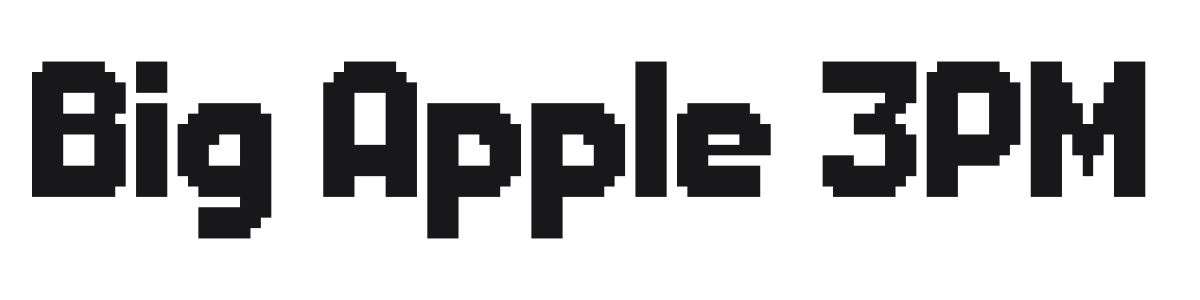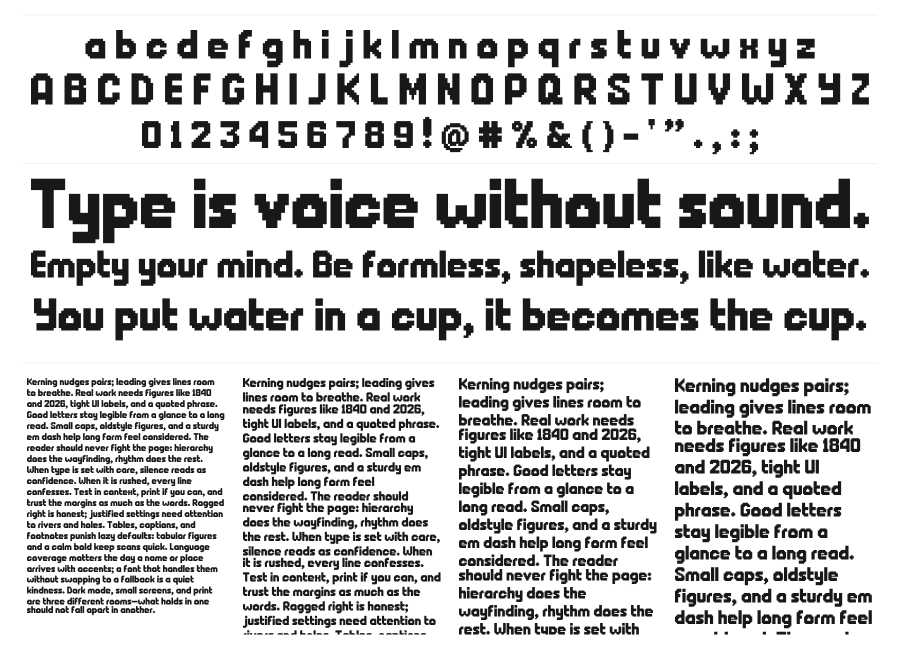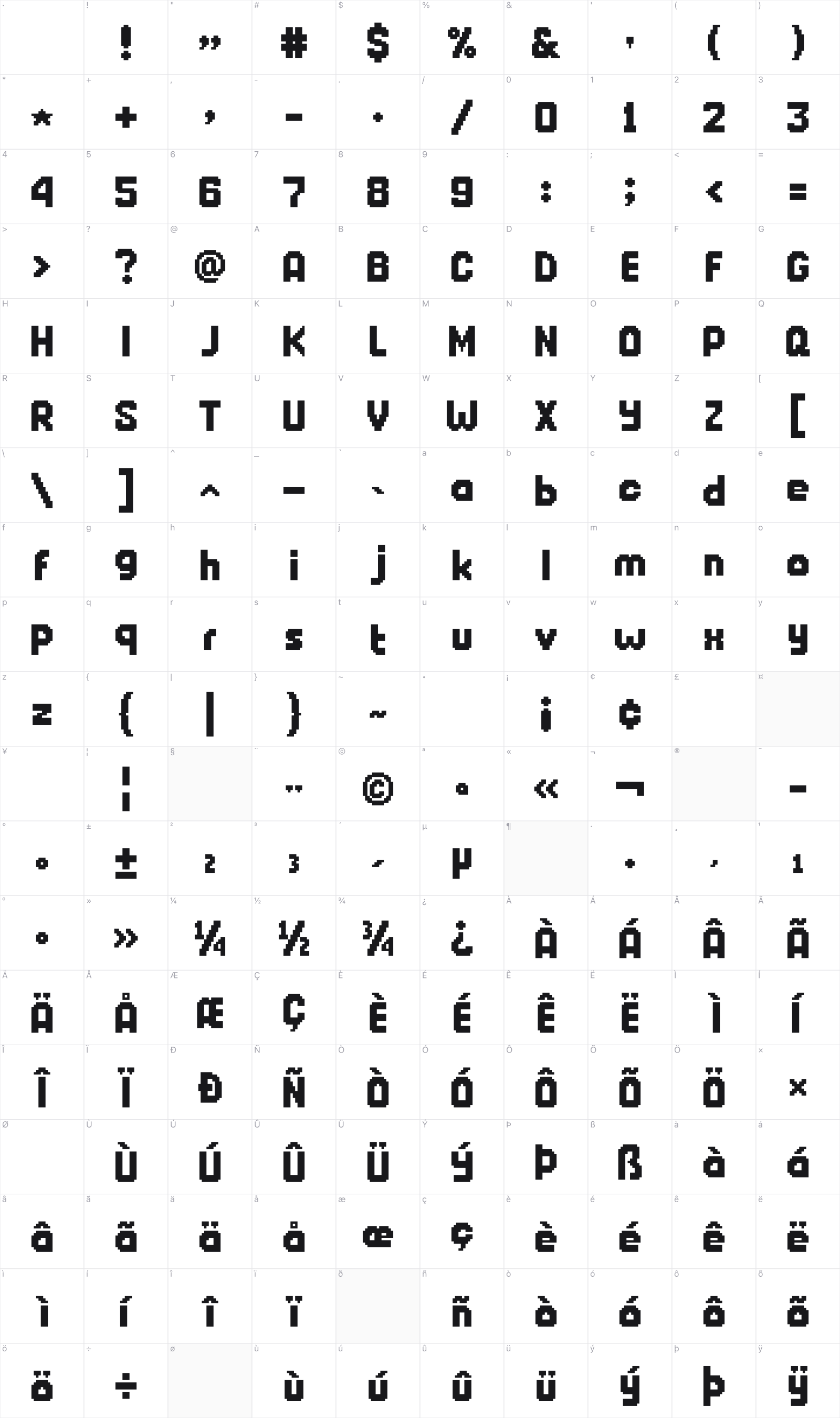
Big Apple 3PM
by Caveras
Big Apple 3PM is a bold pixel sans-serif recreation of the in-game text font from Teenage Mutant Ninja Turtles: Shredder's Revenge. Built on a bitmap grid with thick, chunky strokes and subtly rounded corners, it captures the warmth of classic arcade typography without feeling generic. The character set has been expanded well beyond the original game's glyphs to include diacritics and special characters.